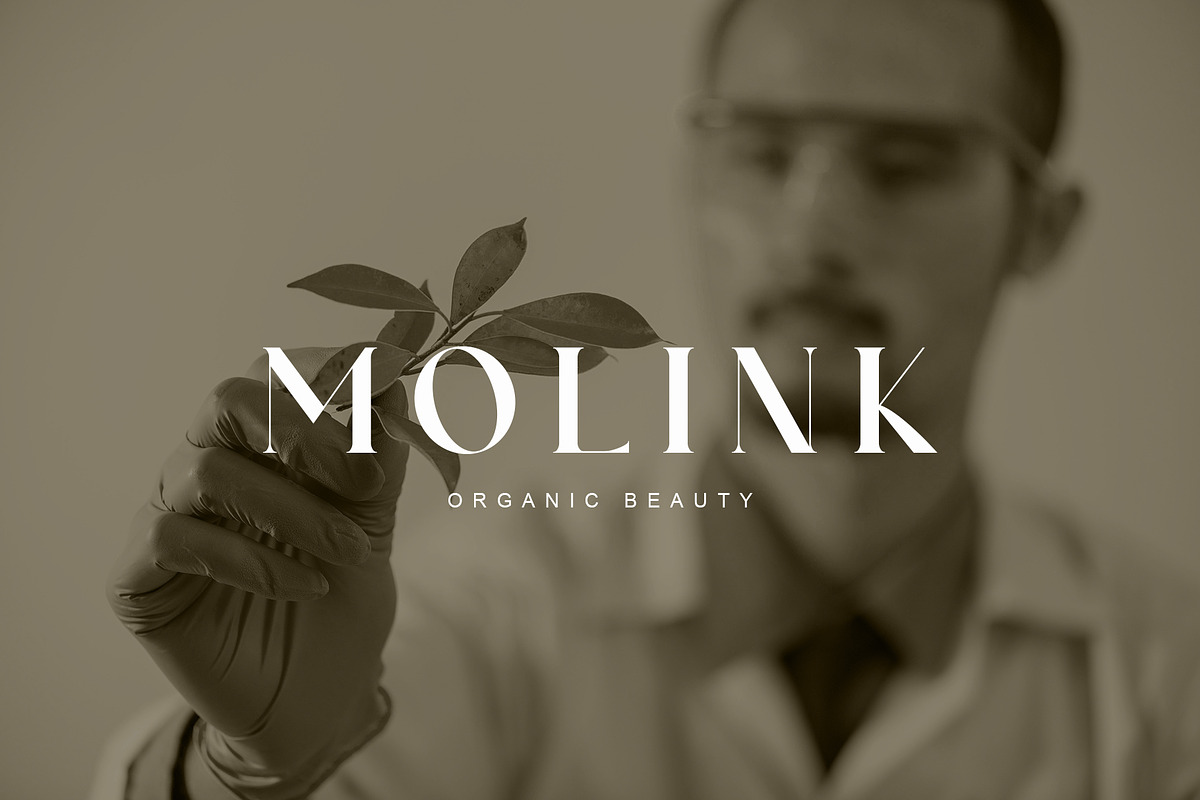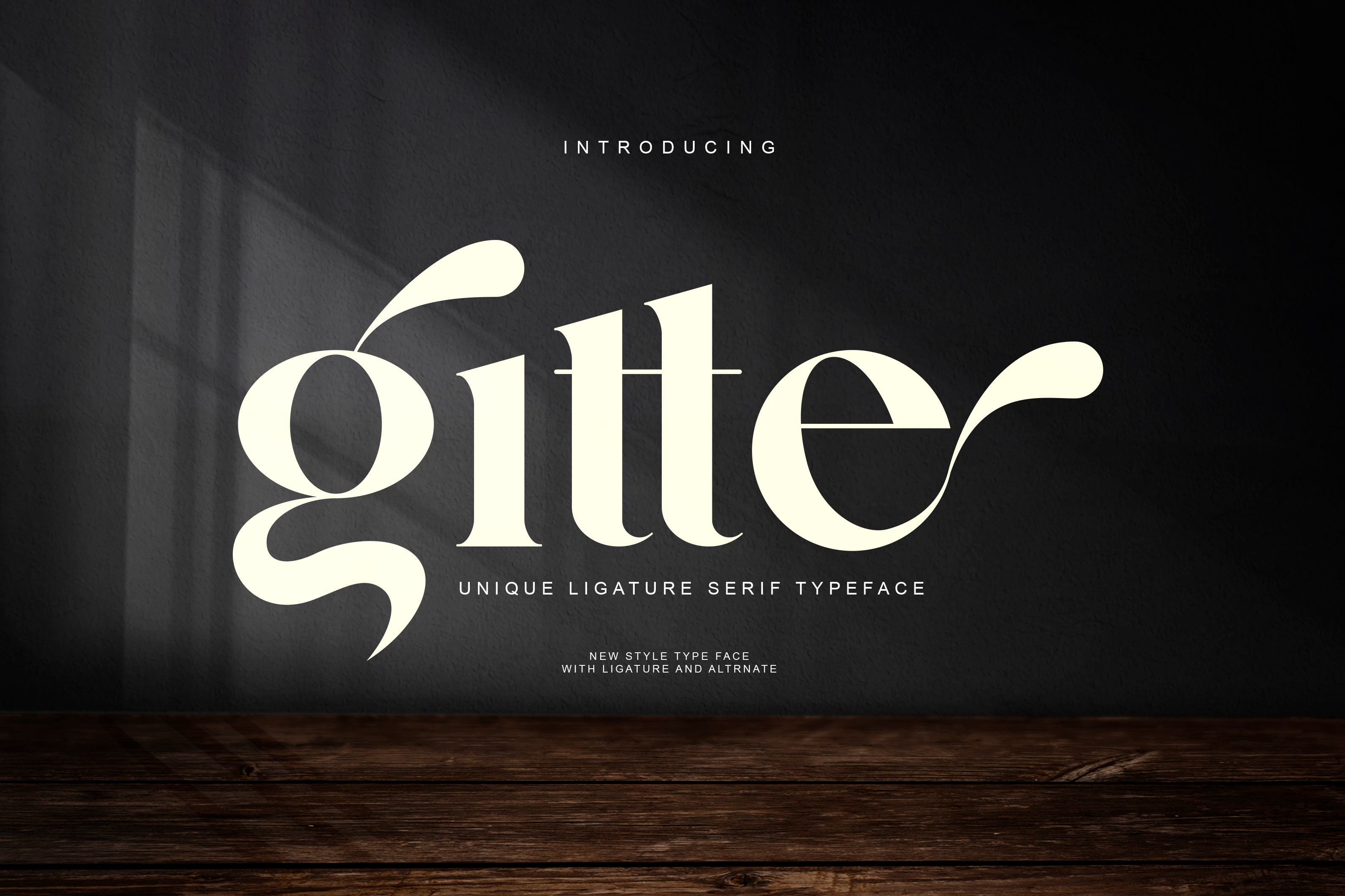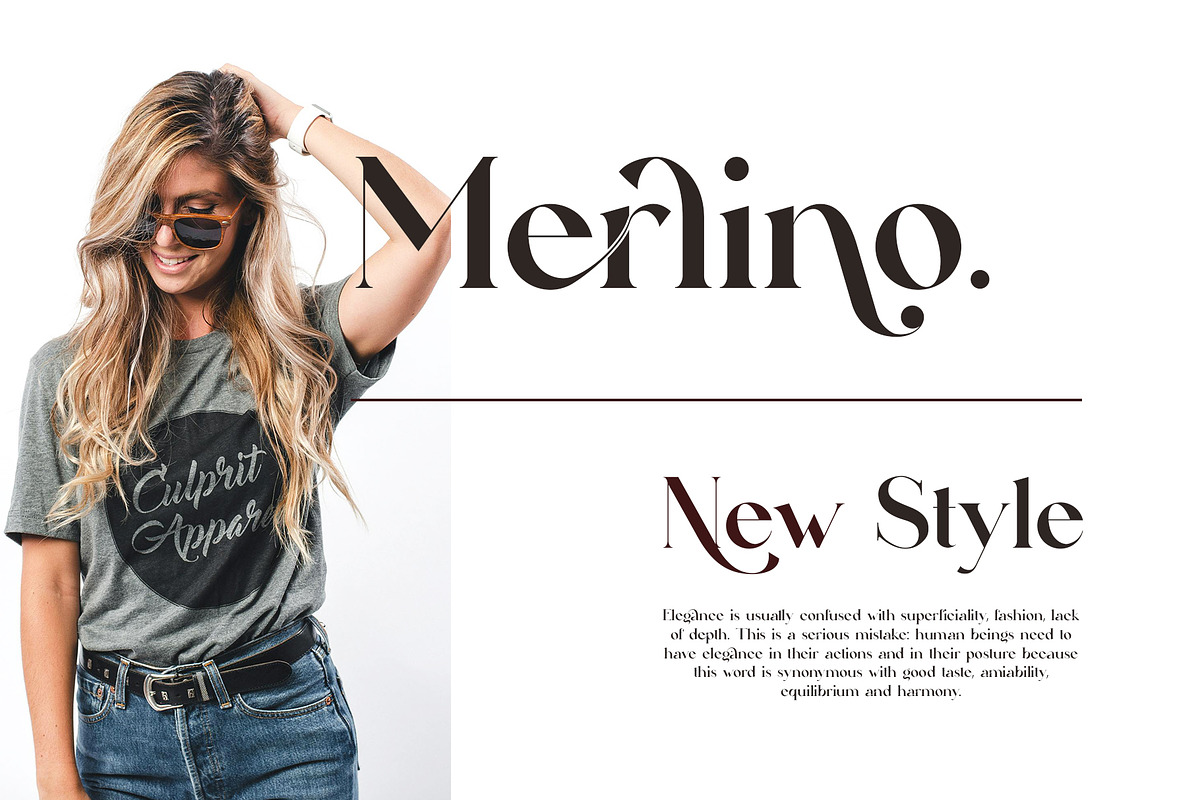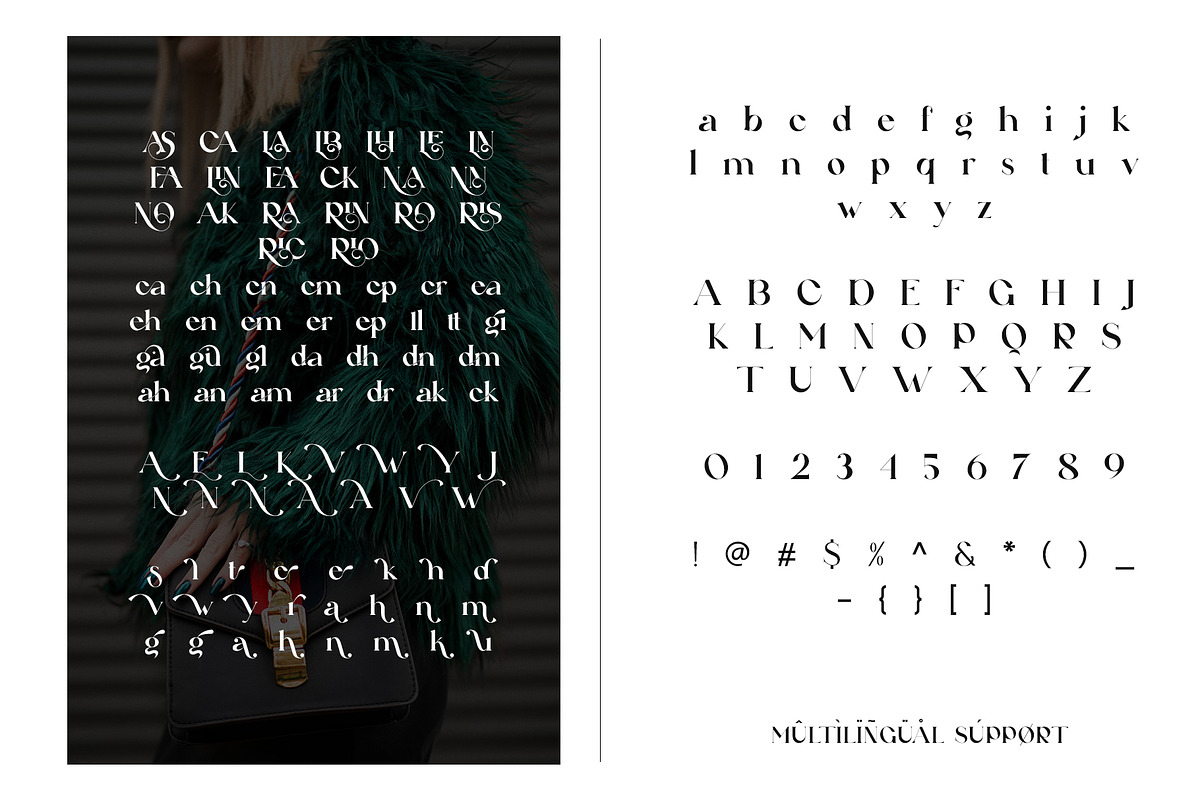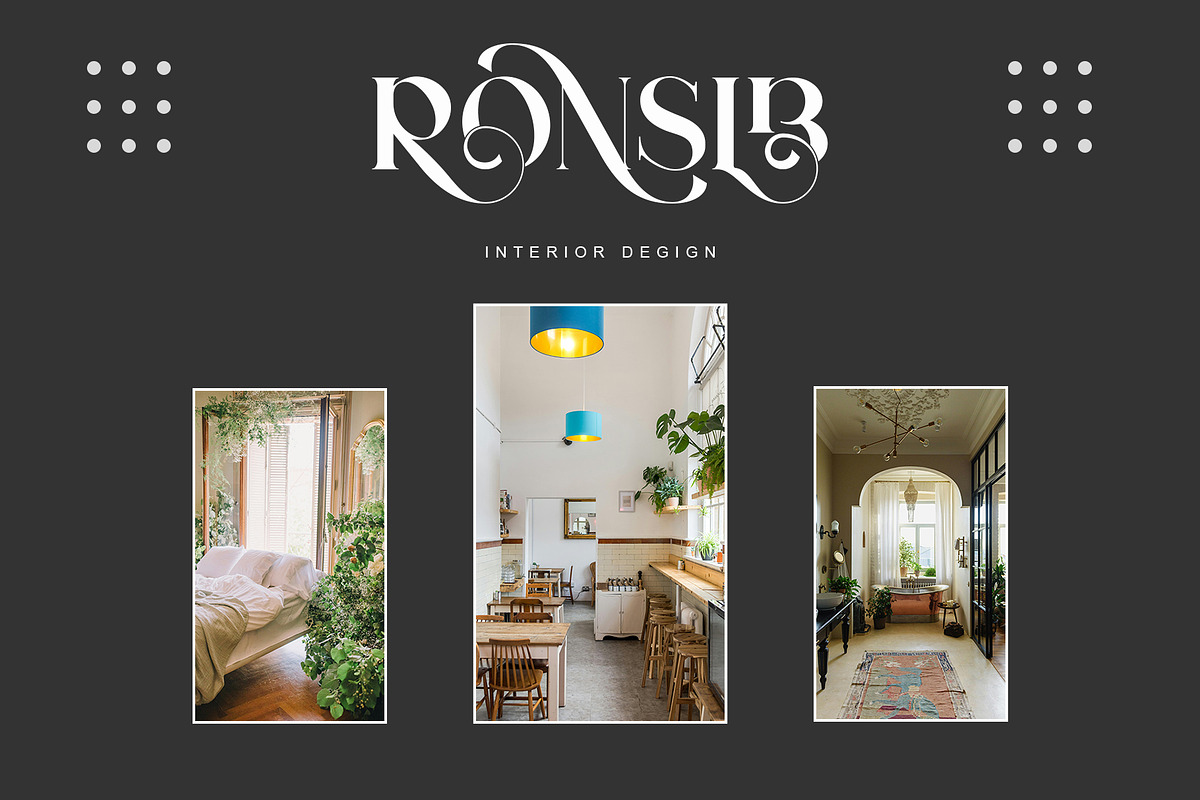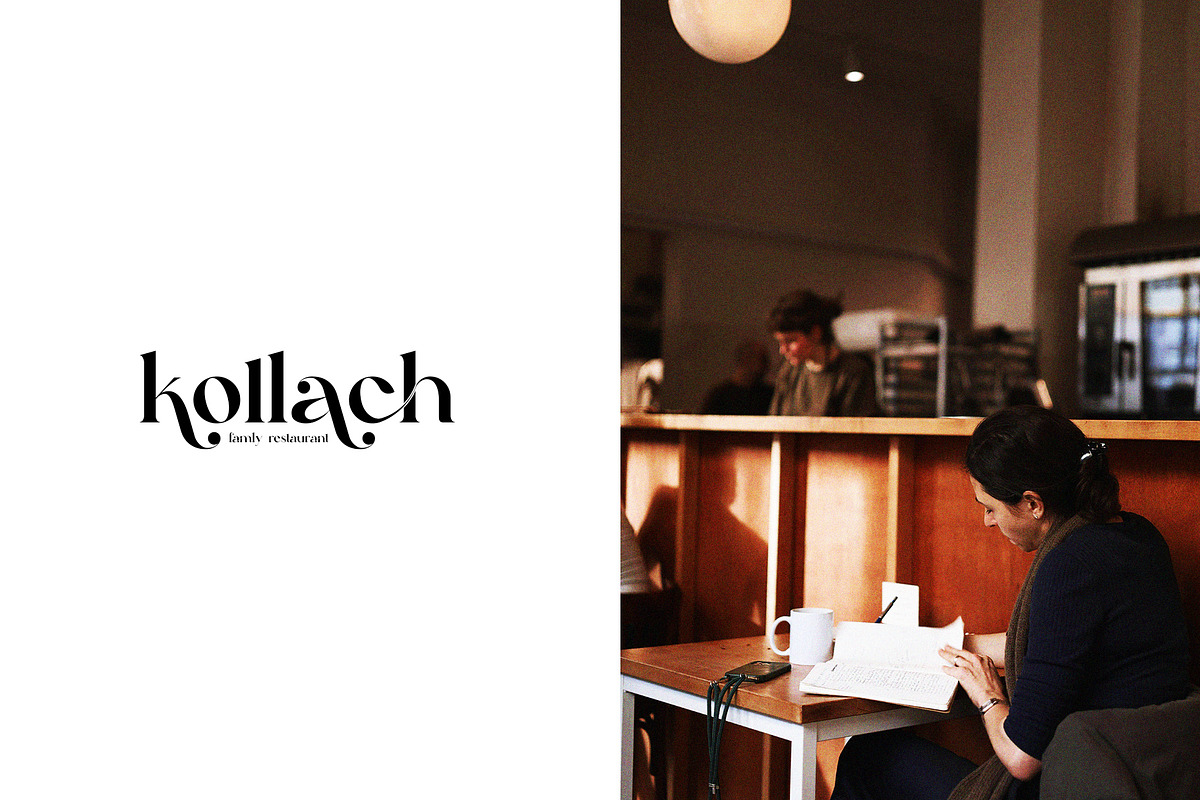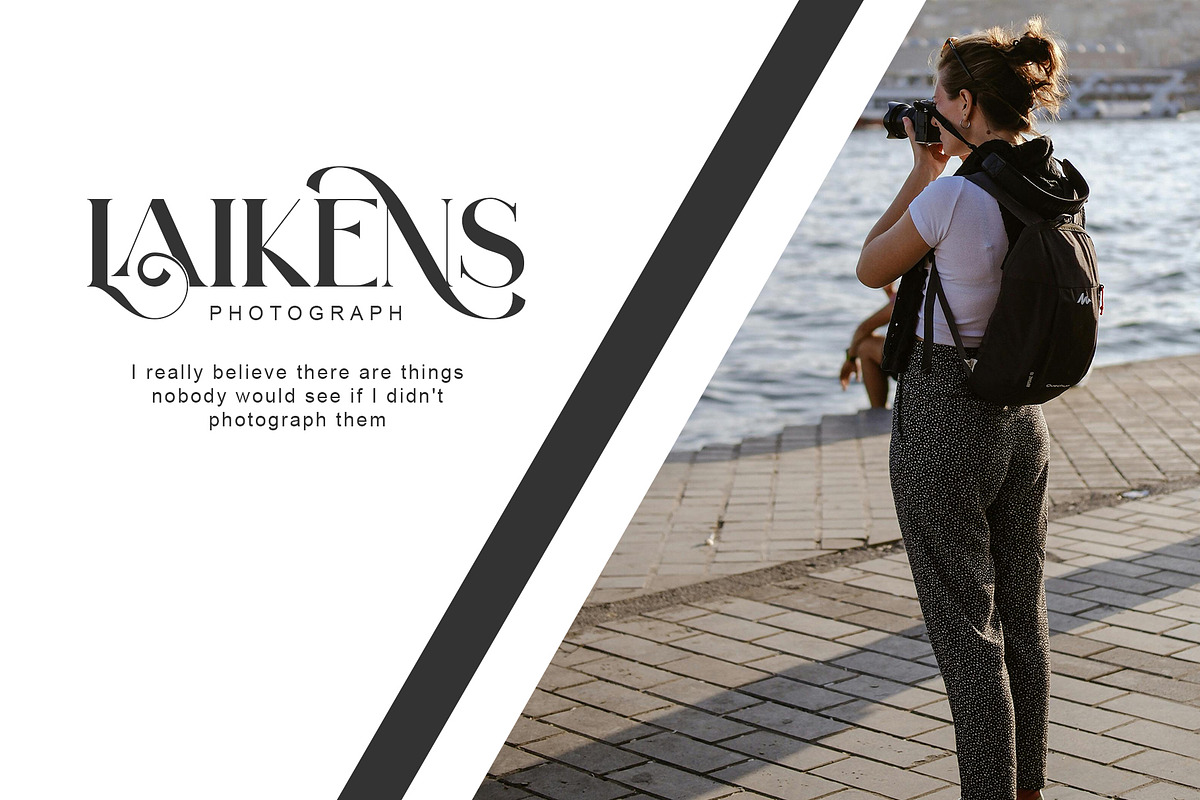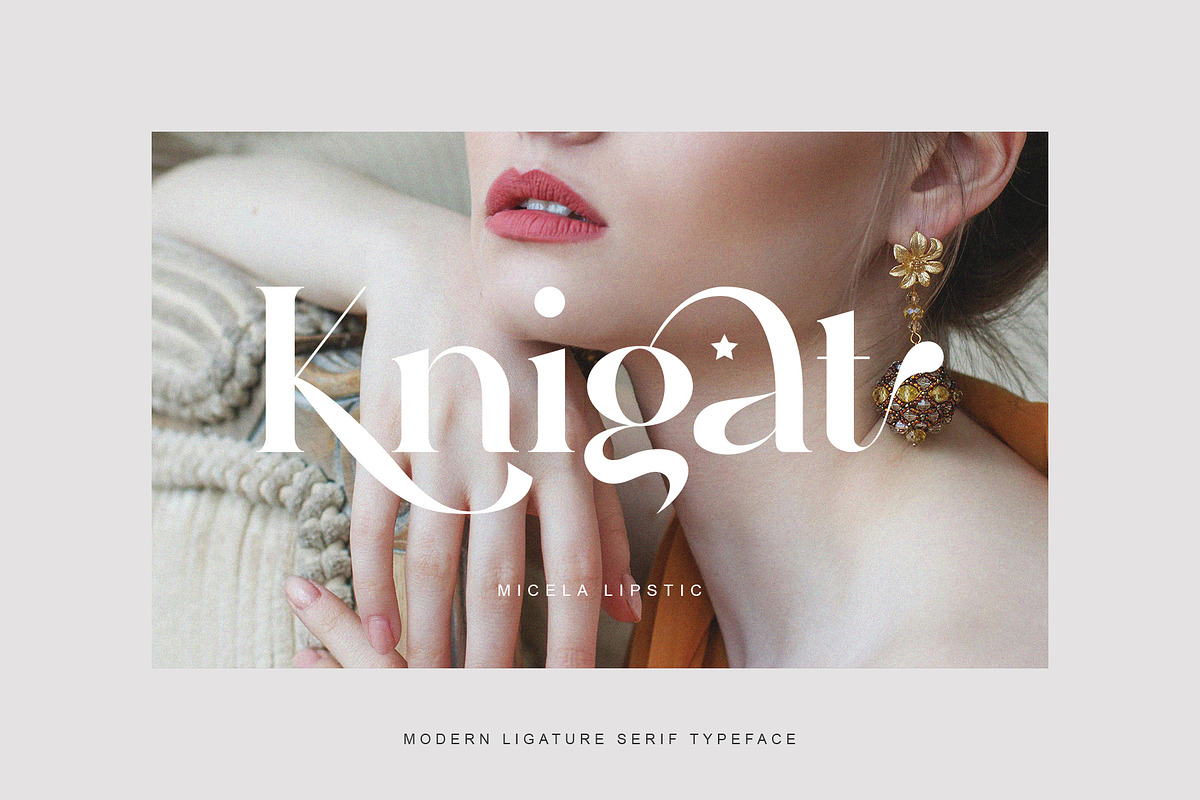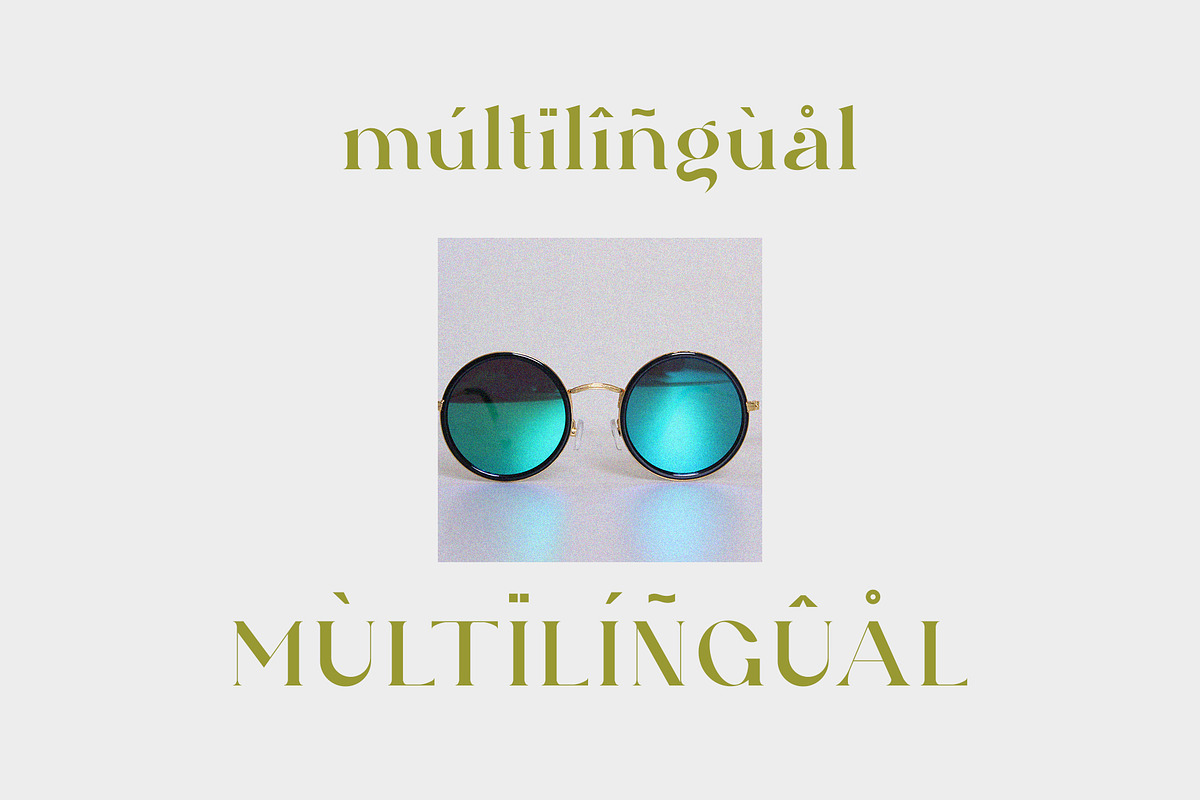
gitte unique ligature serif typeface
gitte is a elegant and classy serif typeface – This font is both modern and nostalgic and works great for logos, magazine, social media. Already matched up and ready to be used together for your next design! For those of you who are needing a touch of elegant, stylish, classy, chic and modernity for your designs, this font was created for you!
gitte was built with OpenType features and includes ligatures, numbers, punctuation, and it also supports other languages.